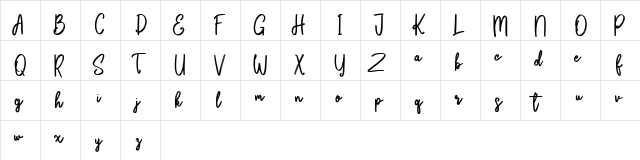
Bikarosta Script
| Style | Script |
| Foundry | Maulana Creative |
| Designer | Maulana Creative |
Design Context for Bikarosta Typeface
Bikarosta brings a calligraphic fluidity to the page — its connecting strokes and expressive curves give it an unmistakably human quality.